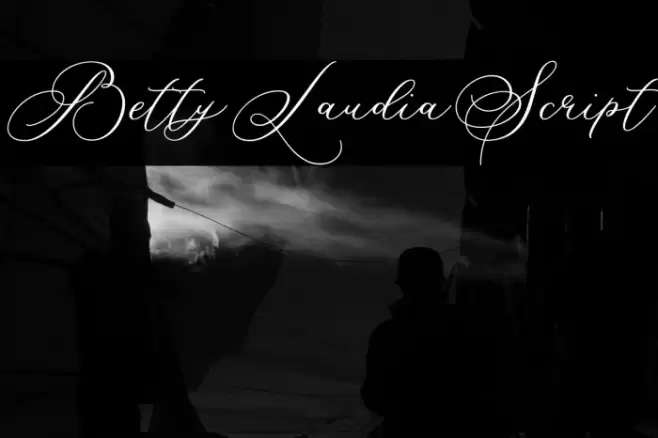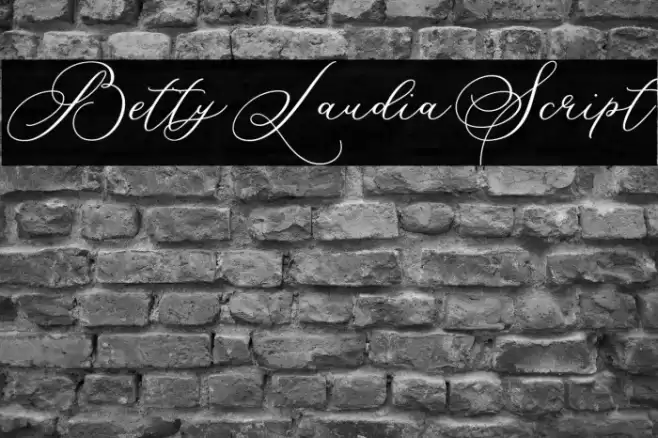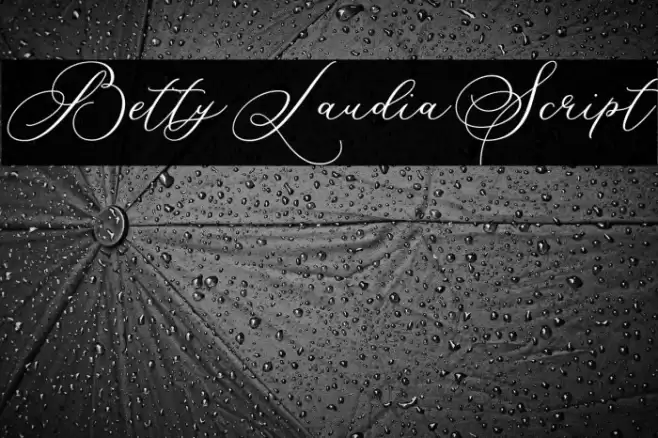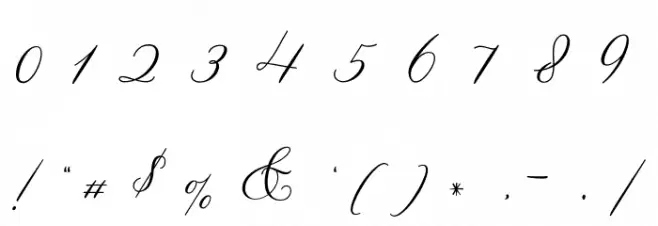
BettyLaudiaScript Font
BettyLaudiaScript Description
This elegant script font exudes a sense of sophistication and grace, characterized by its fluid, cursive strokes and intricate loops. The uppercase letters are adorned with elaborate swirls, giving them a decorative flair, while the lowercase letters maintain a smooth, flowing appearance. The numbers and special characters are crafted with the same attention to detail, ensuring a cohesive look across all elements. The font's delicate lines and high contrast between thick and thin strokes contribute to its refined aesthetic, making it ideal for projects that require a touch of elegance and style.
An elegant script font with fluid, cursive strokes and intricate loops from Regular fonts.
- Font: BettyLaudiaScript
- Overall Style: Elegant, Sophisticated